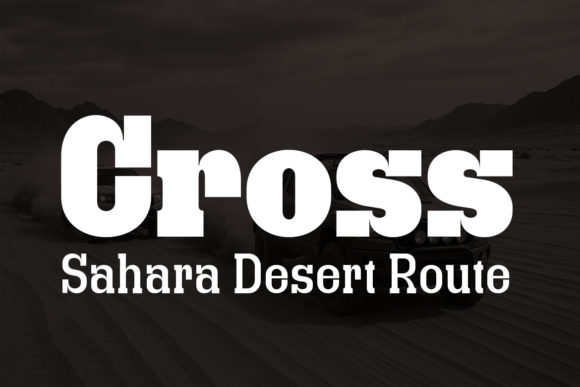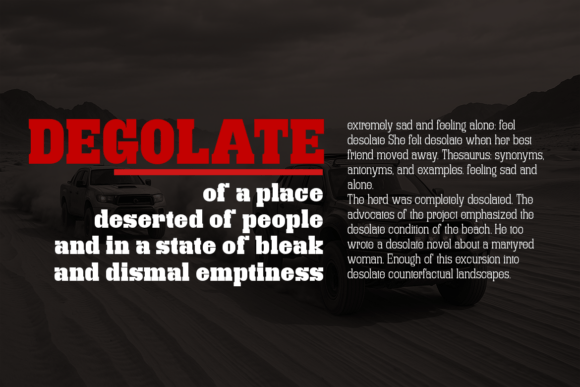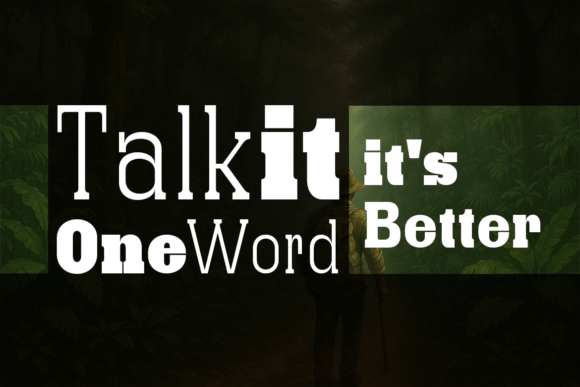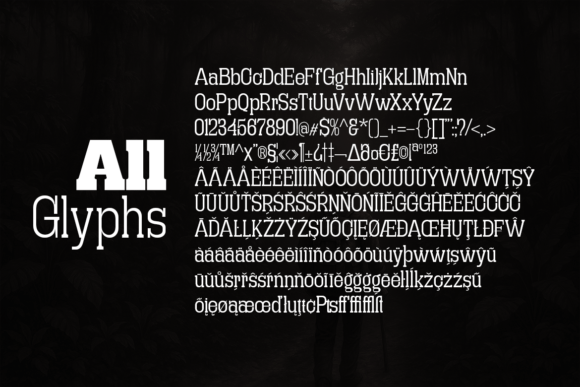
Introducing GetUp Semi Expanded Font: The Perfect Balance of Presence and Legibility
In the world of typography, finding the perfect balance between presence and legibility is a delicate task. A font that commands attention without overwhelming the layout is a rare gem. GetUp Semi Expanded is one such treasure, offering a versatile and authoritative typeface that feels grounded and premium. In this article, we’ll explore the features and benefits of GetUp Semi Expanded, a font that is sure to elevate your design game.
A New Level of Expansion
GetUp Semi Expanded is part of the GetUp font family, which offers a range of weights to suit various design needs. This semi-expanded version opens up the structure with a broader horizontal flow, containing 10 expansive weights, from Thin to Extra Black. This range allows designers to achieve the perfect balance of presence and legibility, making it an ideal choice for medium-length headlines and professional branding.
A Versatile Middle-Ground Typeface
GetUp Semi Expanded is a versatile typeface that feels neither too narrow nor too wide. It strikes the perfect balance, providing breathing room for each character without sacrificing legibility. This “Goldilocks” approach makes it an excellent choice for designers seeking a font that is both stylish and functional. The font’s blocky serifs are maintained, but spread out to create a more stable, horizontal rhythm that commands the center of the page.
Ideal for Luxury Lifestyle Branding and Corporate Identity Systems
GetUp Semi Expanded is particularly suited for luxury lifestyle branding, corporate identity systems, and high-end packaging. Its premium feel and established look make it an excellent choice for brands seeking to convey a sense of sophistication and elegance. The font works beautifully for printed menus, upscale real estate signage, and other applications where a high-end look is desired.
- 10 weights: GetUp Semi Expanded offers a range of weights, from Thin to Extra Black, allowing designers to achieve the perfect balance of presence and legibility.
- Semi-expanded structure: The font’s broader horizontal flow provides breathing room for each character, making it ideal for medium-length headlines and professional branding.
- Blocky serifs: The font maintains the family’s signature blocky serifs, but spreads them out for a more stable, horizontal rhythm.
- Premium feel: GetUp Semi Expanded feels premium and established, making it an excellent choice for luxury lifestyle branding and corporate identity systems.
- Versatile: The font is suitable for a range of applications, including printed menus, upscale real estate signage, and high-end packaging.
Design and Crafting Applications
GetUp Semi Expanded is an excellent choice for designers and crafters seeking a font that is both stylish and functional. Its versatility makes it suitable for a range of applications, including:
- Print design: The font works beautifully for printed materials, such as menus, brochures, and signage.
- Digital design: GetUp Semi Expanded is also suitable for digital applications, including website headers, social media graphics, and email marketing campaigns.
- Branding and identity: The font’s premium feel and established look make it an excellent choice for branding and identity systems.
| Author | Artisans |
GetUp Semi Expanded is a versatile and authoritative typeface that offers the perfect balance of presence and legibility. Its semi-expanded structure, blocky serifs, and range of weights make it an excellent choice for designers and crafters seeking a font that is both stylish and functional. Whether you’re working on luxury lifestyle branding, corporate identity systems, or high-end packaging, GetUp Semi Expanded is sure to elevate your design game.
With its premium feel and established look, GetUp Semi Expanded is a font that is sure to impress. So why settle for a font that is too narrow or too wide? Choose GetUp Semi Expanded for your next design project and experience the perfect balance of presence and legibility.